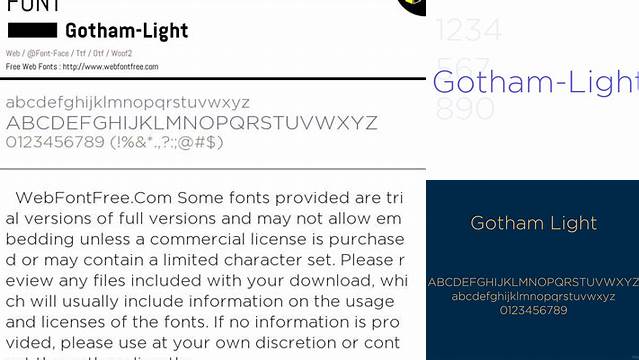
Gotham Pro Light Font: Free Download & Usage Guide
Hey guys! Are you looking for a sleek, modern font that can elevate your design projects? Look no further! The Gotham Pro Light font is a fantastic choice. This article will walk you through everything you need to know about the Gotham Pro Light font free download, its uses, and why it's a go-to for designers worldwide. Let's dive in!
What is the Gotham Pro Light Font?
Firstly, what is the Gotham Pro Light font? Well, it's a lighter weight variant of the iconic Gotham font family. Designed by Tobias Frere-Jones and released by Hoefler & Co., Gotham is known for its clean, geometric sans-serif design. The Gotham Pro Light font offers a delicate and airy feel, making it perfect for headlines, subheadings, and any text where you want to create a sense of sophistication and clarity. Its simplicity and readability make it incredibly versatile, suiting various design projects. Think about it: you've probably seen Gotham everywhere, from movie posters to corporate branding, even on the Obama presidential campaign! It’s a design classic for a reason.
The Gotham Pro Light font specifically shines in its lighter weight. It provides a subtle elegance that contrasts beautifully with bolder elements, allowing designers to create visual hierarchies with ease. It's not just about looking pretty; it's about communicating effectively. The font's letterforms are meticulously crafted, ensuring readability at different sizes and across various media. Whether you're working on a website, a print publication, or a mobile app, the Gotham Pro Light font can help your text look sharp and professional. It’s a workhorse that combines aesthetic appeal with practical functionality. Furthermore, the font’s character set includes a wide range of glyphs, supporting multiple languages and offering numerous stylistic options. This versatility enables designers to customize the font to fit their specific needs. When you decide to use the Gotham Pro Light font free download, you're not just getting a font; you're getting a design tool that has become an industry standard. It's also worth noting that the Gotham family includes different weights, from ultra-light to black, allowing for creative flexibility when creating your designs.
This font is more than just letters on a screen; it's a statement. It’s a way of saying your brand is modern, clean, and trustworthy. The subtle elegance of the light weight makes it perfect for creating a sense of space in your designs. You can use the Gotham Pro Light font to create a sense of minimalism and draw attention to the most important parts of your text. In the digital world, where visual elements dominate, choosing the right font can make or break your design. Gotham Pro Light font is a great choice, because it’s a font that elevates and complements your design ideas. When you are considering what font to use, remember that the goal is to effectively communicate your message, and with the Gotham Pro Light font, you have a tool that makes it easier to achieve it. Don't forget that you can use the font in different sizes, styles, and colors to create an amazing design that is both visually appealing and easy to read. This will make your projects stand out from the competition. Ready to take your design to the next level? Let's explore how you can get your Gotham Pro Light font free download.
How to Use the Gotham Pro Light Font in Your Projects
So, you've got your Gotham Pro Light font free download (or a legal alternative)! What now? The possibilities are endless, but here are some cool ideas for how to use this versatile font in your projects. The clean lines and elegant weight of the Gotham Pro Light font make it perfect for headlines, subheadings, and short paragraphs in websites, blogs, and digital publications. It's great for creating a modern and professional look. Imagine a website with a sleek, minimalist design, and the Gotham Pro Light font is used for all of its headings. This gives the entire layout a unified and sophisticated feel. It’s also a great option for creating a sense of space and airiness, ensuring that your website's content is easily readable and visually appealing. It helps to improve the overall user experience by enhancing the clarity and aesthetics of the design.
In print media, the Gotham Pro Light font works beautifully on brochures, magazines, and posters. The delicate weight of the font adds a touch of elegance without overwhelming the design. Consider using it for titles and subtitles, and pair it with a slightly bolder weight for body text to create a visual hierarchy. It's perfect for creating an attractive and easy-to-follow layout. Imagine designing a poster for an event. The Gotham Pro Light font could be used to display the event title, while other weights of Gotham, such as the regular or medium, can handle the rest of the information. This creates a cohesive and eye-catching design that attracts attention and efficiently communicates the necessary details. Using the Gotham Pro Light font in the right way will make your print materials look polished and professional.
Moreover, the Gotham Pro Light font shines in branding and logo design. It's a great option for creating a clean, modern logo. Think of it being used on business cards, letterheads, and other branded materials. The simplicity of the font makes it highly versatile and suitable for a wide variety of brands. A logo using the Gotham Pro Light font will look timeless and easily recognizable. When choosing a font for your brand's identity, it’s important to choose something that aligns with your brand's values and personality. The Gotham Pro Light font can communicate sophistication, modernity, and trustworthiness.
The Gotham Pro Light font is a fantastic font that can elevate your design projects. While obtaining a Gotham Pro Light font free download might require some research, the benefits of using this iconic font are well worth it. Remember to always download fonts from reputable sources and respect licensing terms. Whether you use the original Gotham Pro Light or explore one of the alternatives, your designs will look great! Now, go out there, create something amazing, and have fun with it! Happy designing, guys!